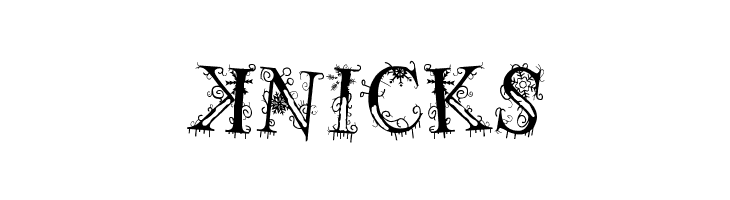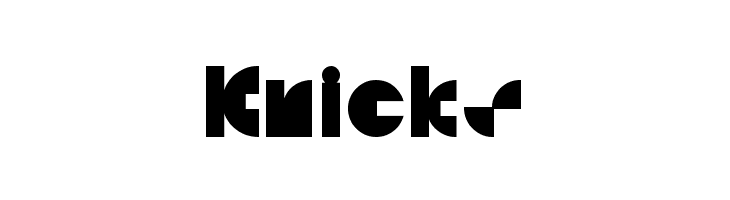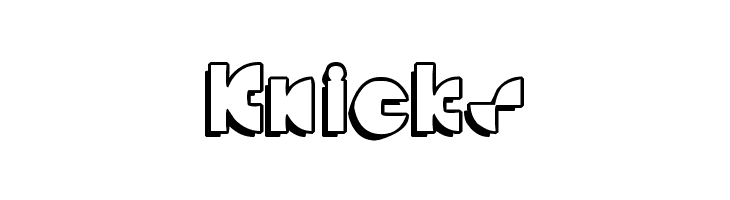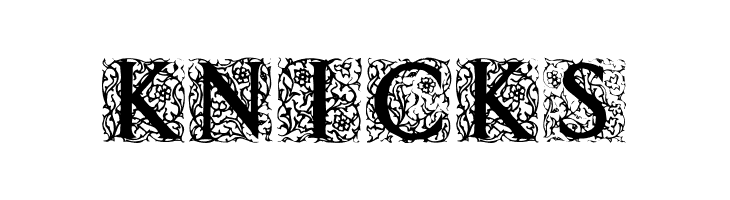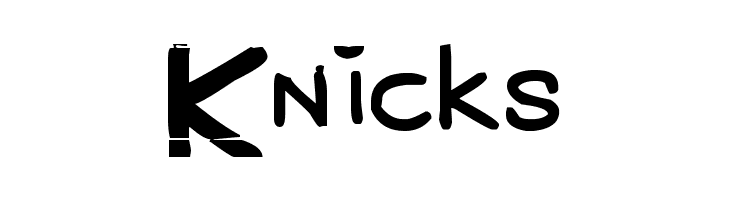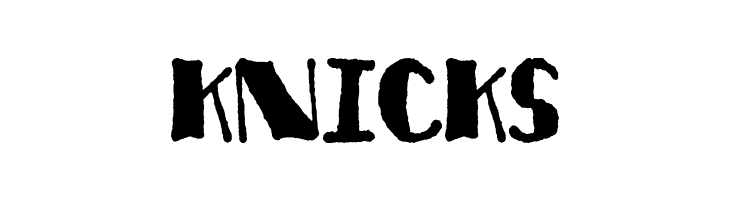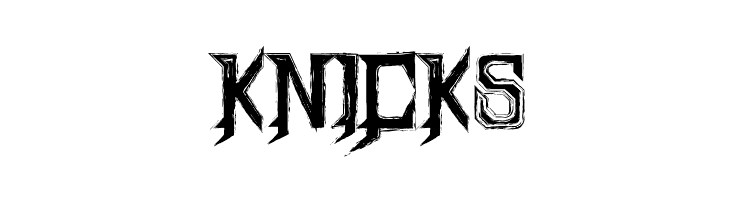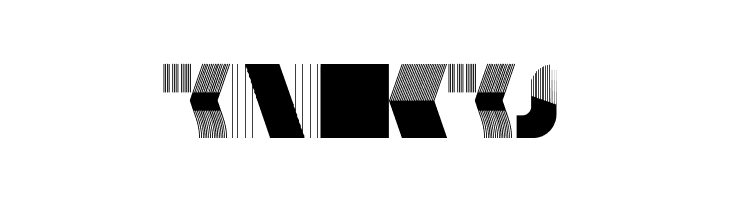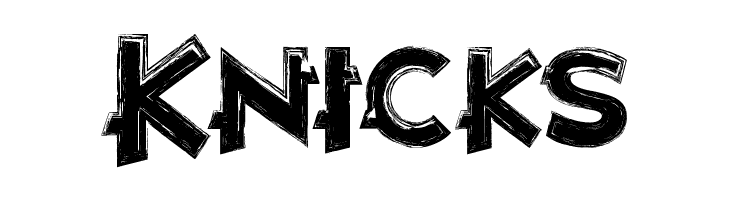
A modern, rounded font with a playful and geometric style.
A bold, geometric, and oblique font with sharp angles and a modern style.
A whimsical, curly handwritten font with playful loops and dynamic strokes.
A dynamic, brush-style font with expressive strokes and fluid motion.
A textured, hand-drawn style font with a playful, energetic feel.
A bold, expressive, hand-drawn font with a brush-like, graffiti-inspired style.
A playful, curly font with noodle-like strokes and a whimsical appearance.
A modern, geometric font with a digital, tech-inspired aesthetic.
A bold, distressed font with geometric shapes and rough edges.
A bold, distressed typewriter-style font with a vintage feel.
A bold, distressed font with a rugged, vintage appearance.
A bold, playful handwritten font with rounded, irregular letterforms.
A playful decorative font of assorted rabbit and bunny illustrations.
A decorative dingbat font with assorted rabbit and bunny illustrations.
A bold, expressive script font with fluid, dynamic strokes and a handwritten feel.
A whimsical, hand-drawn font with tall, narrow characters and a playful style.
A bold, 3D-effect font with a dynamic, italicized style.
A bold, distressed font with a dynamic, energetic style.
A bold, geometric font with a modern and impactful design.
A bold, geometric display font with a modern, edgy style.
An elegant script font with flowing, connected cursive letters and ornate uppercase characters.
A bold, geometric font with a futuristic, digital aesthetic.